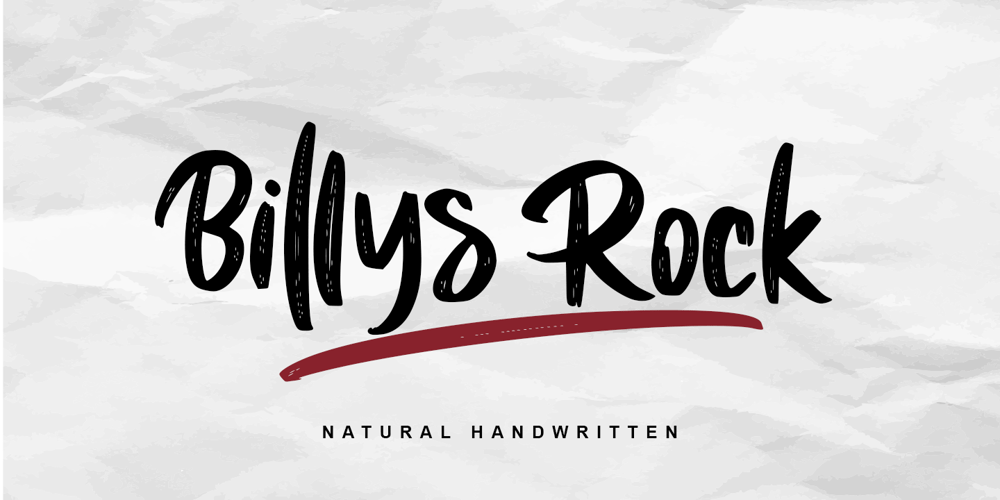
Billys Rock Font Family was designed by Thomas Aradea and published by Letterara. Billys Rock contains 2 styles and family package options. Billys Rock is a natural dry brush font. this font has a striking look and a good flow font that can add style to your designs. It’s perfect for logos, quotes, posters, clothing, and every other design which needs a strong touch.